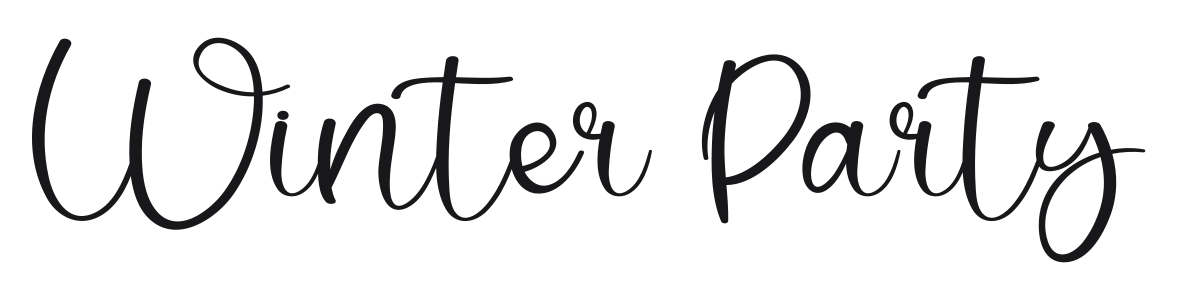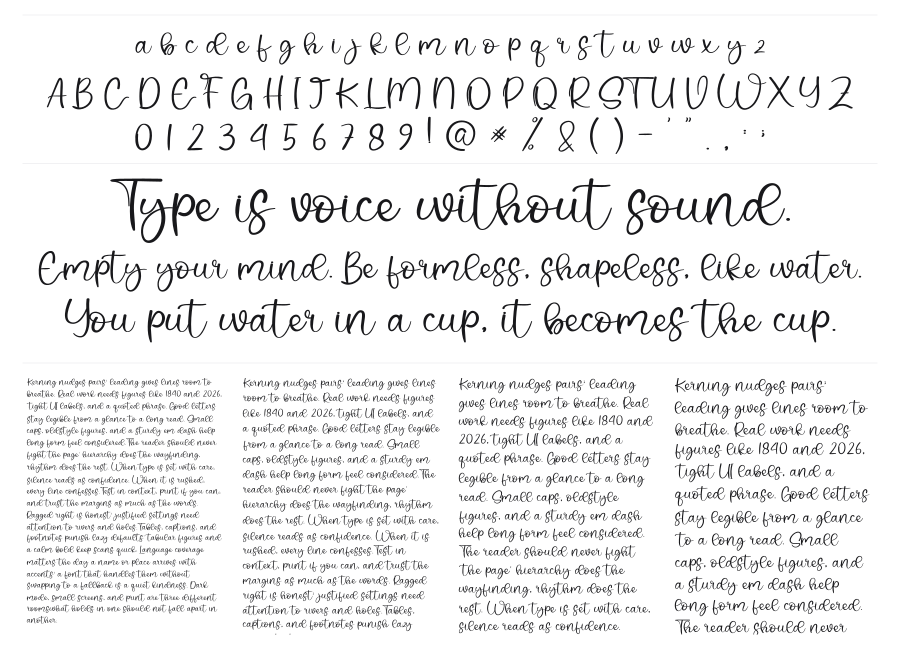
Winter Party
Winter Party is a flowing casual script with a lively bouncy baseline and looping ascenders that give it an energetic, hand-penned feel. The moderate stroke contrast and smooth letter connections keep it legible while maintaining a relaxed, celebratory warmth. It works well on packaging, greeting cards, social media graphics, and seasonal branding.